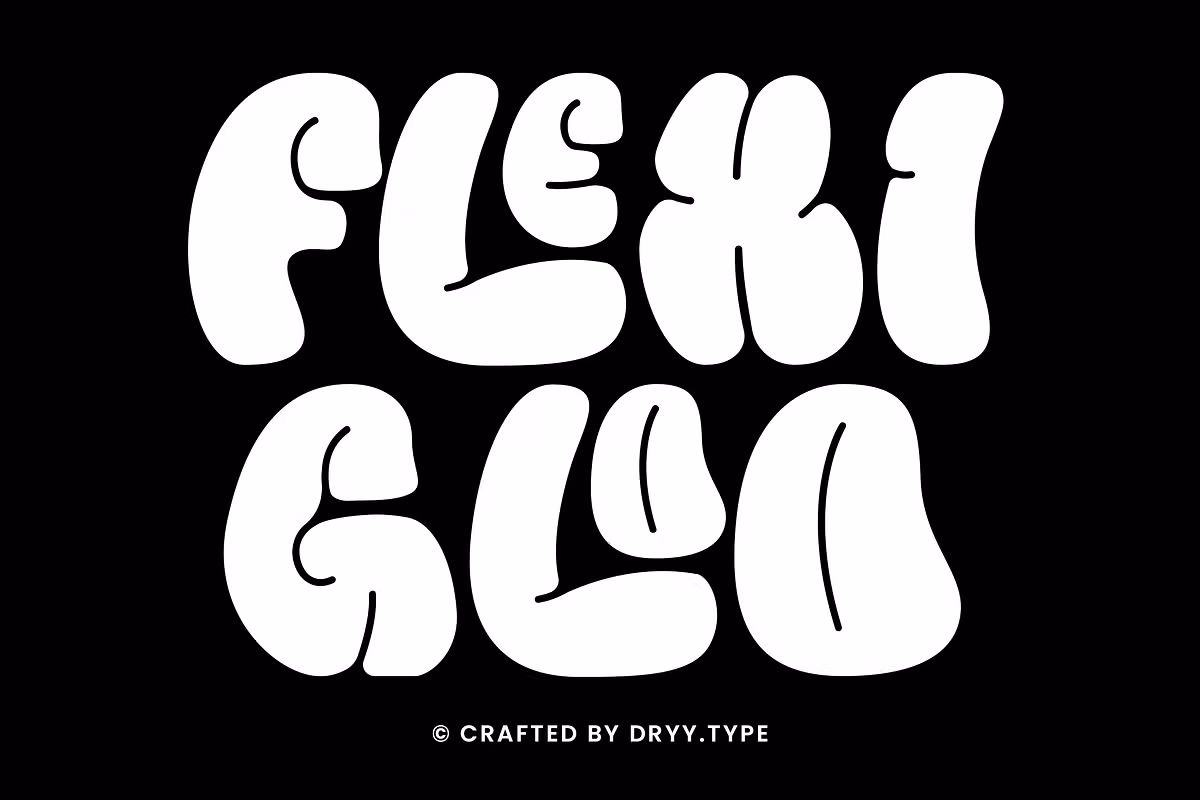
Flexi Gloo - Bubble Display Font Free Download is a fun and bold typeface designed to add a playful and energetic touch to your designs. Featuring rounded, bubble-like letterforms, this font is perfect for creating eye-catching logos, posters, advertisements, and social media content. Its unique design makes it ideal for projects that require a lighthearted, creative vibe. Whether you’re designing for a children’s brand, a playful campaign, or an event, Flexi Gloo - Bubble Display Font Free Download allows you to experiment with its dynamic style in personal projects before purchasing a commercial license. Add a fun, bubbly element to your designs with this charming and creative display font.